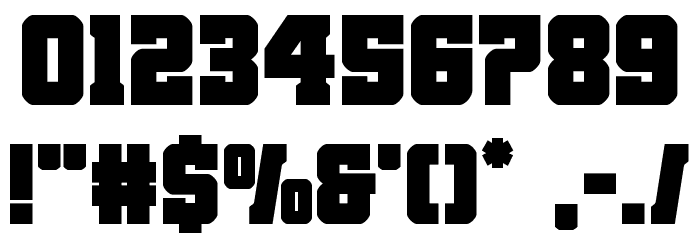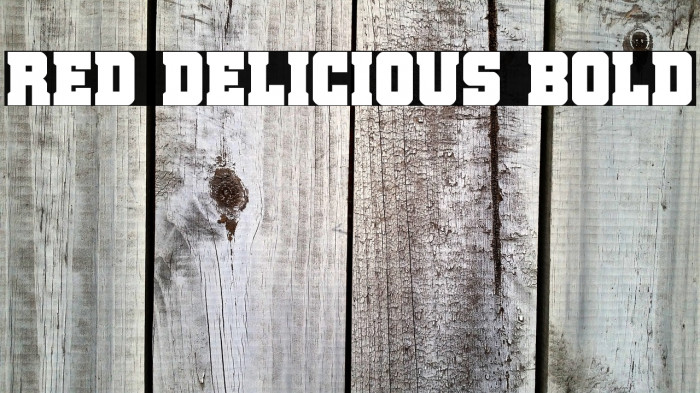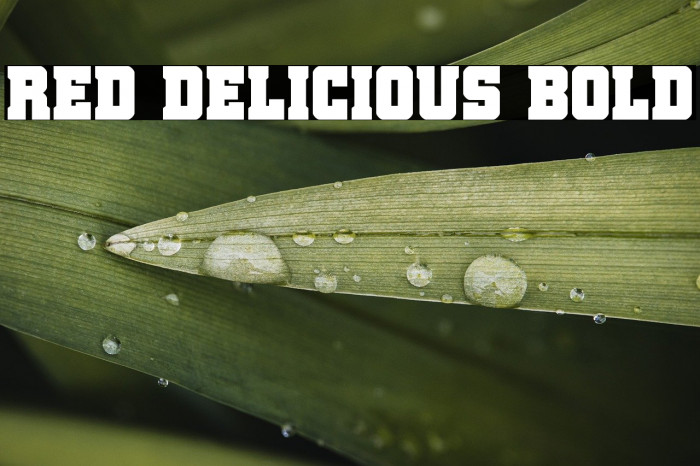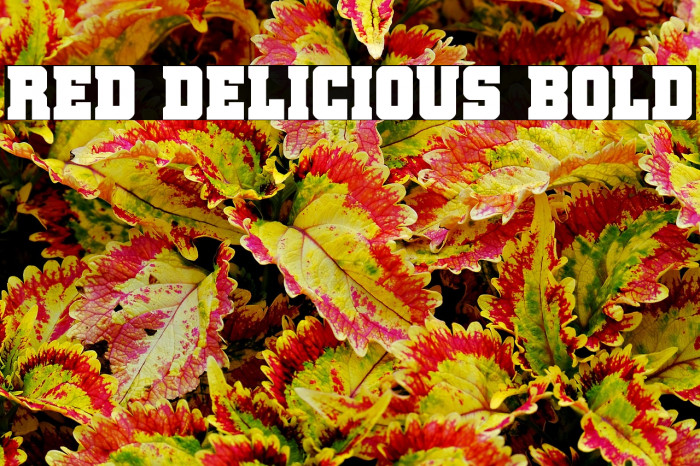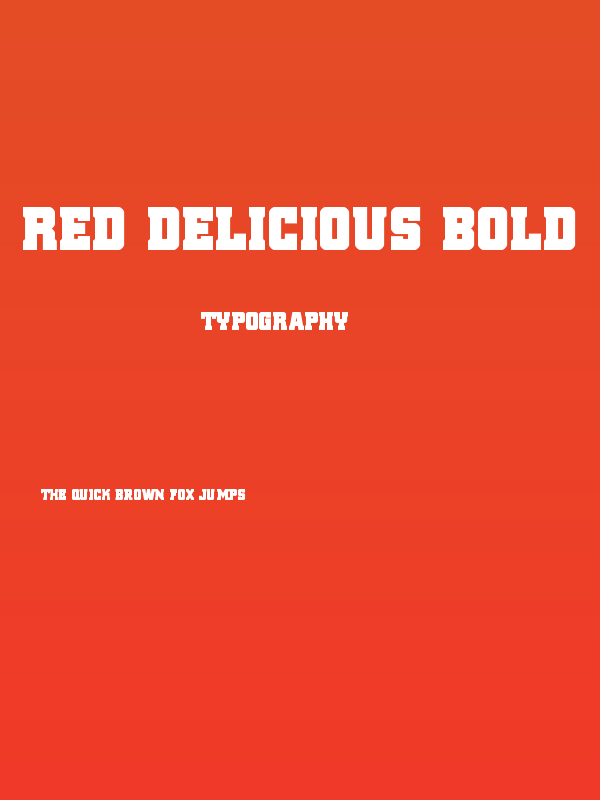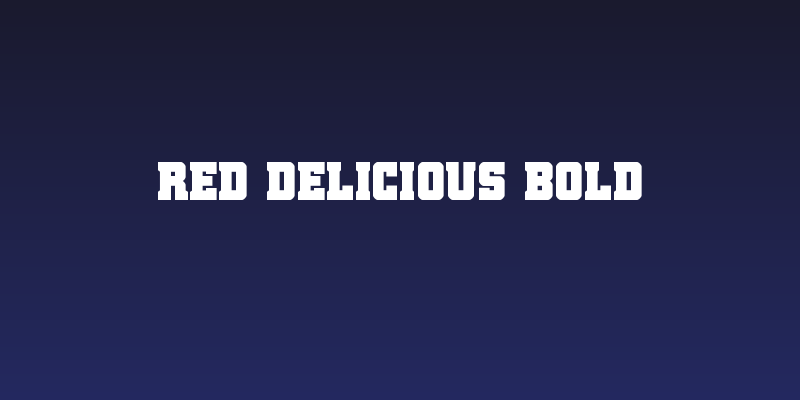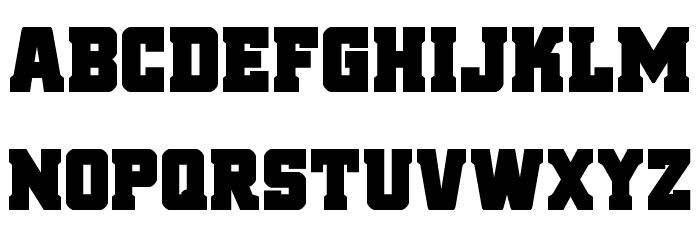
Red Delicious Bold Font
Red Delicious Bold Description
This bold, slab serif font features strong, block-like characters with thick strokes and minimal contrast. The uppercase letters are particularly prominent, exuding a sense of strength and stability. The numerals are equally robust, maintaining the same boldness and clarity. Special characters are designed with the same heavy weight, ensuring consistency across all glyphs. The overall design is impactful, making it suitable for attention-grabbing headlines and displays.
| Proposed Projects | Ideal for posters, signage, branding, and any project requiring a strong visual impact. |